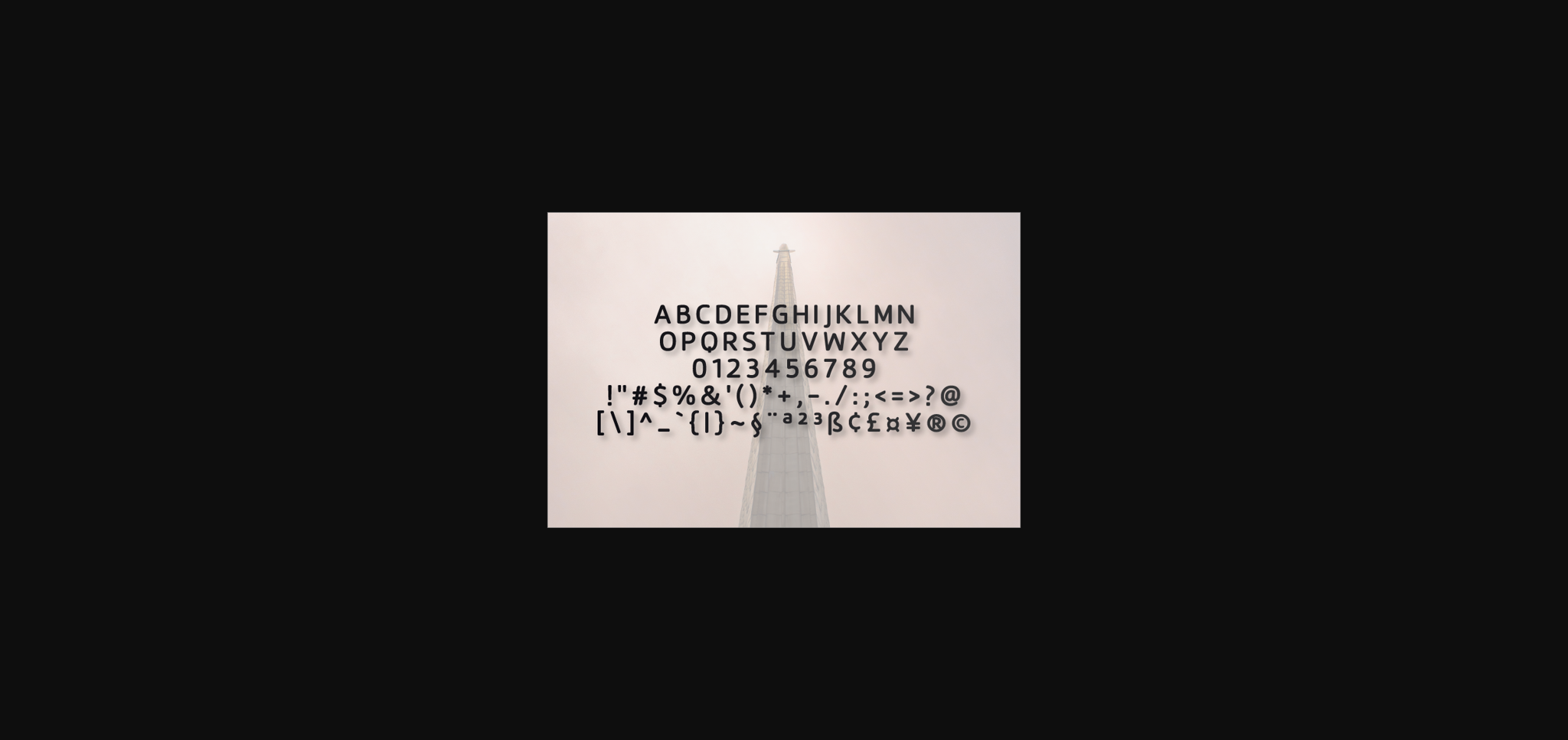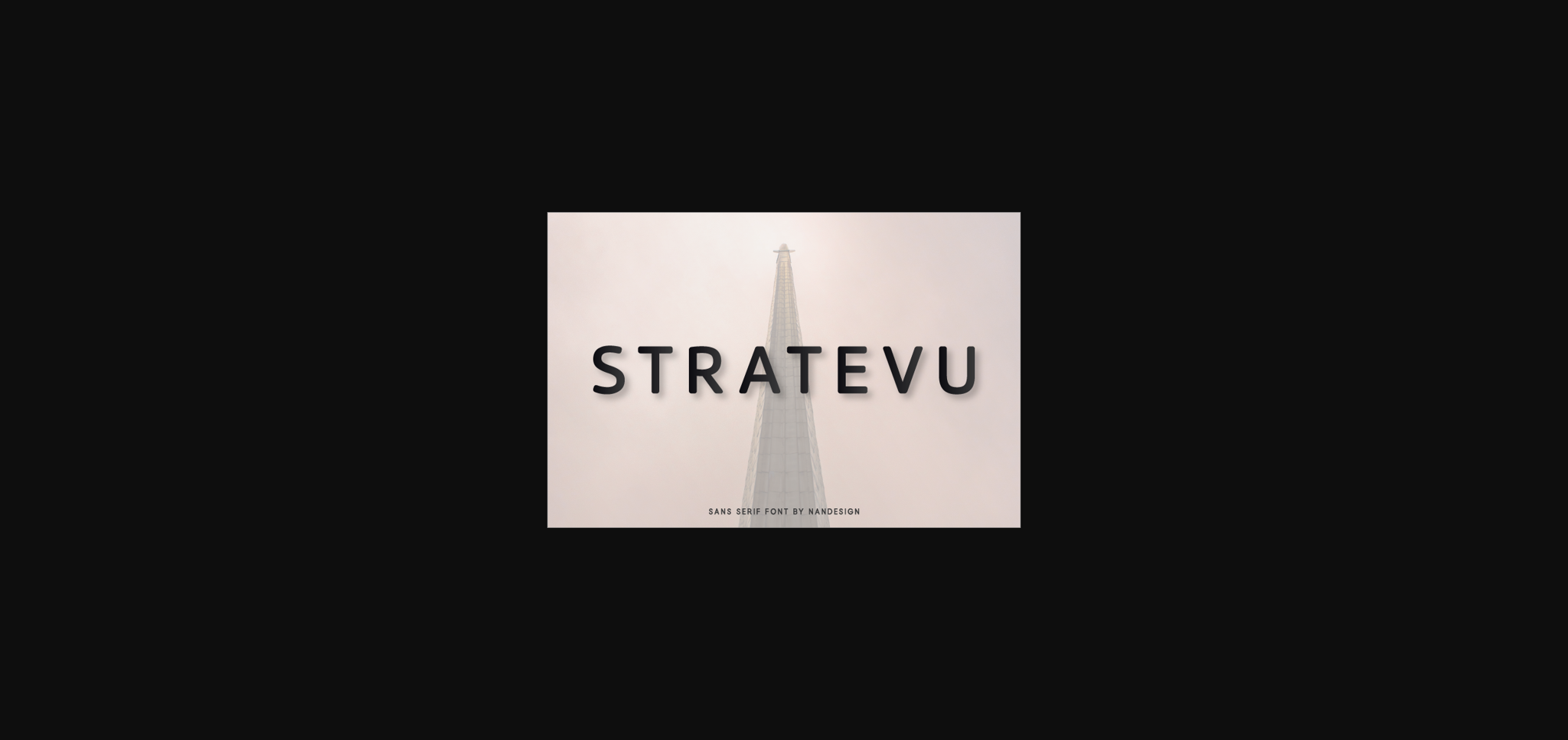
HomeSans Serif FontsStratevu Font Sans Serif Fonts Stratevu Font FacebookXPinterestWhatsApp 1 of 4 ... Stratevu Font Poster 2... Stratevu Font Poster 3... Stratevu Font Poster 4... About Stratevu Font Stratevu is a round-lettered, simple sans serif font. Its fresh calligraphy will appeal to a wide range of crafty ideas, from letterheads and titles, to stationery. DOWNLOAD NOW People also explored Happy New Year Font Domestika Font Andetsen Font Kallyca Font Wrenley Marlowe Font Wildome Font Nachtron Bhuent Font Taani Font Menittaya Font 430 0 TagsStratevu Font Previous articleBerna FontNext articleSophiena Font LEAVE A REPLY Cancel reply Comment: Please enter your comment! Name:* Please enter your name here Email:* You have entered an incorrect email address! Please enter your email address here Website: Save my name, email, and website in this browser for the next time I comment. Personal Use Free Frozdotre Personal Use Free Read more about this font Cline Personal Use Free Read more about this font Kinda Sweet Personal Use Free Read more about this font Party Pooper Personal Use Free Read more about this font BLOG Using Fonts in Digital Marketing: Tips to Strengthen Your Brand Identity In the realm of digital marketing, every visual element plays a crucial role in shaping a brand's identity, and fonts are no exception. The... To increase your work productivity, choose the most readable fonts. 5 Fonts That Will Dominate Design Trends in 2026 Top 10 Handwritten Fonts That Elevate Your Designs